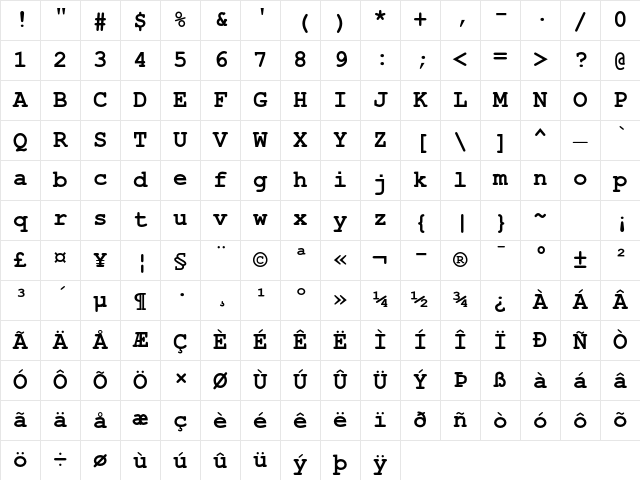
Complete Courier PS MT Std Bold glyph index. Displaying only characters natively supported by Courier PS MT Std Bold font.
Courier PS MT Std uses fixed-width spacing throughout, giving it the structured, systematic character associated with coding environments and technical documentation. Its bold stroke weight gives it real presence on the page.
Pro Tip: Use Courier PS MT Std with slightly increased line-height for extended reading - fixed-width spacing can feel dense in longer passages without extra breathing room.